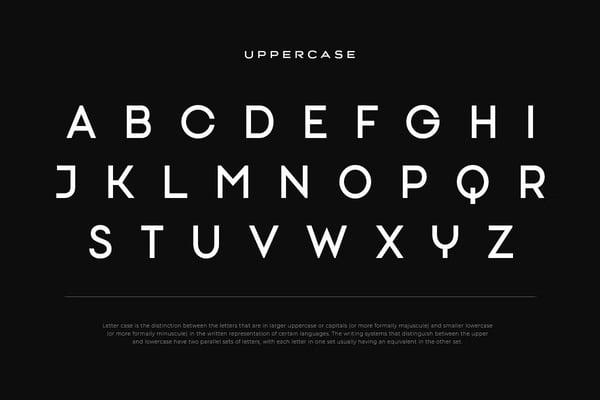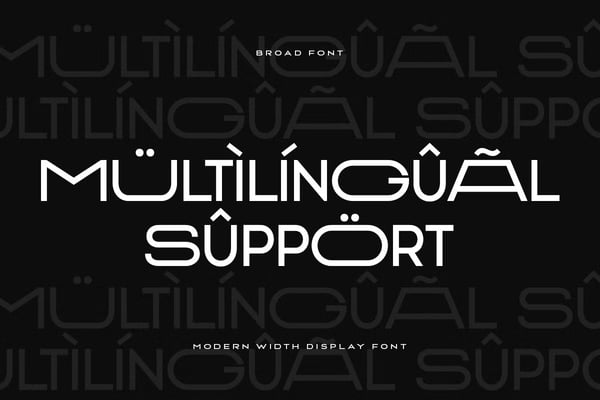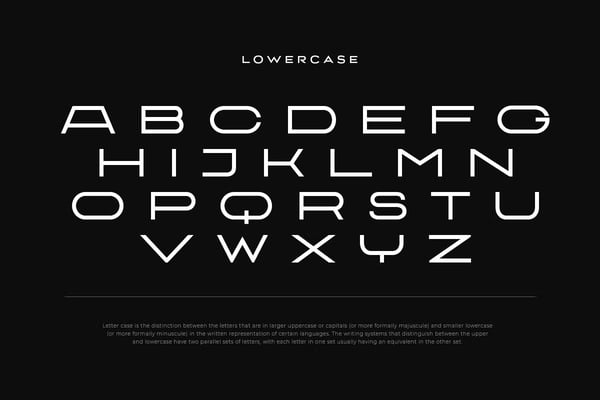
An Ultra Wide Font For Stand Out Headlines (And it's Free!)
In a world where brands compete for attention, typography can make or break your design. BROAD is a free modern width display font that delivers exactly what its name promises – bold, extended characters that dominate any design space with confidence and style.
Perfect for Modern Branding and Display Work
This distinctive sans serif display font features wide, extended characters that create immediate visual impact. The modern geometric design makes BROAD an ideal solution for designers who need typography that breaks away from conventional fonts. Whether you're crafting a bold logo, designing eye-catching headlines, or creating poster layouts, BROAD's extended width styling ensures your message won't go unnoticed.
The font includes complete uppercase and lowercase character sets, giving you full flexibility for various design applications. From minimalist branding to contemporary web design, BROAD adapts to multiple styles while maintaining its distinctive wide character appeal.
Versatile Applications for Creative Projects
BROAD excels in multiple design contexts. Use it for: